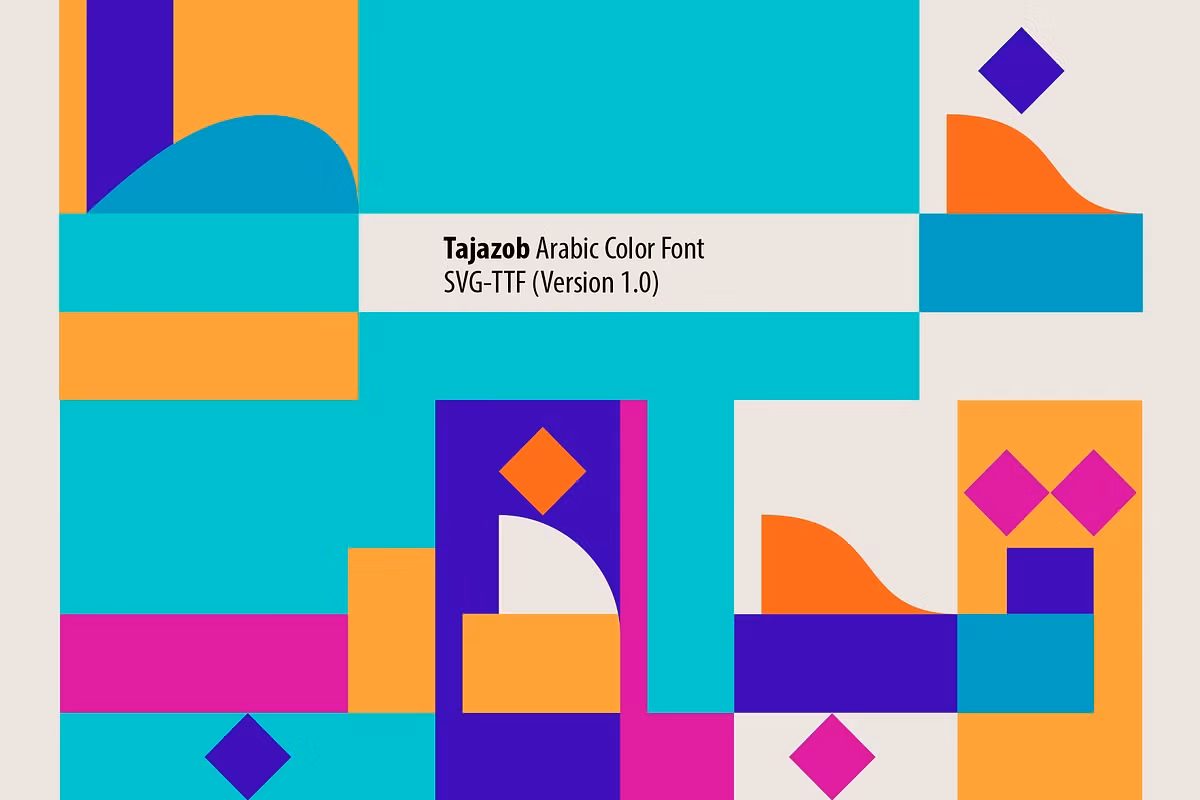
Tajazob - Arabic Color Font Free Download
Please note, you must purchase this font for commercial use. However, you can easily download Tajazob - Arabic Color Font Free Download for personal use and testing purposes. Tajazob - Arabic Color Font is a beautifully designed typeface that combines the elegance of Arabic script with vibrant color effects. Perfect for Arabic-themed projects, cultural designs, posters, and branding, this font offers a unique, artistic approach to typography. The colorful design of Tajazob - Arabic Color Font Free Download makes it ideal for creating eye-catching visuals with a modern, dynamic twist. Whether you're working on an event flyer, social media graphics, or artistic compositions, this font will help elevate your design with its stunning color and intricate style. Download Tajazob - Arabic Color Font Free Download today and explore its colorful potential before committing to a commercial license.